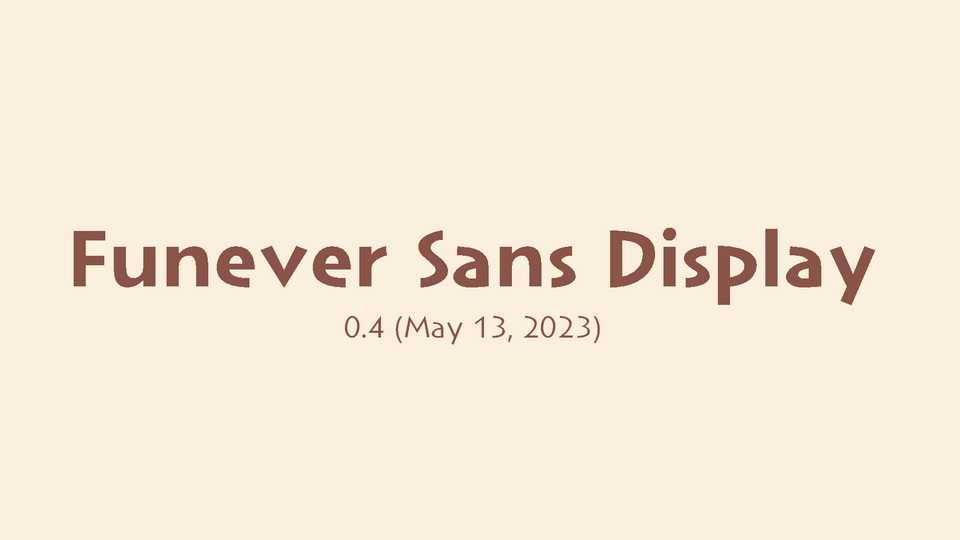
Download Funever Sans font, an ancient Greek inscription-liked variable sans serif typeface, inspired by geometric letterforms of the engravings. Funever Sans is a quite modern looking typeface that conveys a sense of ethnicity.